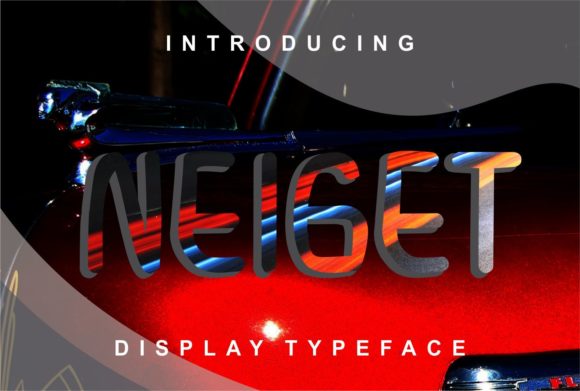
Introducing Neiget Font: The Epitome of Whimsy and Humor in Typography
Unleash your creativity and infuse your designs with an infectious dose of laughter with Neiget Font, a display font family specifically tailored to ignite smiles and spread cheer. Neiget is the brainchild of Letteria_studio, a renowned collective of font artisans renowned for their exceptional craftsmanship. This font family is meticulously designed to capture the essence of lightheartedness, making it the perfect choice for adding a touch of humor and playfulness to your projects.
Neiget's meticulously crafted characters exude a cheerful disposition, featuring playful curves and unexpected flourishes that dance across the page. Each letterform is imbued with a sense of movement and energy, as if they're engaged in a joyous celebration. This dynamic font family is guaranteed to captivate your audience, leaving them with a smile on their face and a desire to engage with your content.
With its remarkable versatility, Neiget Font seamlessly adapts to a wide range of design applications. Whether you're creating eye-catching posters, designing hilarious flyers, or crafting witty social media graphics, Neiget has got you covered. Its inherent charm effortlessly elevates any project, transforming ordinary words into extraordinary expressions of mirth and amusement.
Imagine the impact of Neiget Font on your funny T-shirt designs. Its whimsical nature will make your designs stand out from the crowd, attracting customers with its irresistible charm. Your T-shirts will become conversation starters, sparking laughter and spreading joy wherever they go. Neiget Font is the ultimate choice for creating T-shirts that are not just visually appealing but also emotionally engaging.
But Neiget Font's talents extend far beyond the realm of T-shirts. Its versatility shines in countless other applications. Unleash your creativity and explore its endless possibilities. Use Neiget Font to design humorous greeting cards that bring smiles to faces, create playful invitations that spark excitement, or craft captivating logos that leave a lasting impression. The possibilities are limitless, bound only by the limits of your imagination.